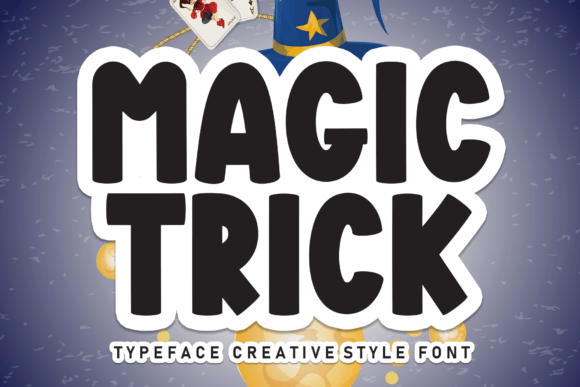
Prepare yourself to be spellbound by the enchanting Magic Trick Font, a captivating creation from the artistic genius of andikastudio. This bold, all-caps display font exudes confidence and charm, adding an instant touch of sophistication to your creative endeavors.
Unleash your inner artist and let your imagination run wild with Magic Trick's versatile personality. Perfectly tailored for crafting, digital designing, presentations, and greeting card making, this font effortlessly elevates your designs, making them stand out from the mundane.
The Magic Trick Font's striking presence ensures that your words command attention, leaving a lasting impression on your audience. Its carefully crafted characters, bursting with personality, evoke a sense of intrigue and playfulness that captivates hearts and minds.
Step into a world of wonder and let Magic Trick Font cast its spellbinding charm upon your projects. Allow its bold strokes and enchanting curves to transport you to a realm where creativity reigns supreme.
With Magic Trick Font, you hold the key to unlocking a treasure trove of design possibilities. Embrace its allure and watch as your projects transform into captivating masterpieces that ignite imaginations and leave an indelible mark.